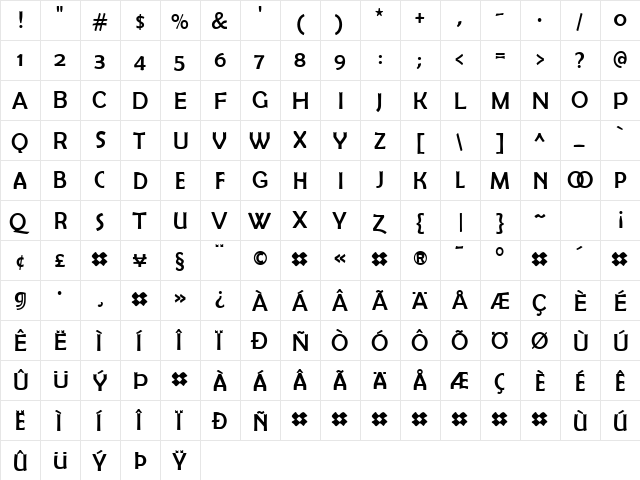
Berlinsans RomanExpert
Design Context for Berlinsans Typeface
Berlinsans takes a measured approach to typography — its balanced proportions and neutral character make it a reliable workhorse for both digital and print work.